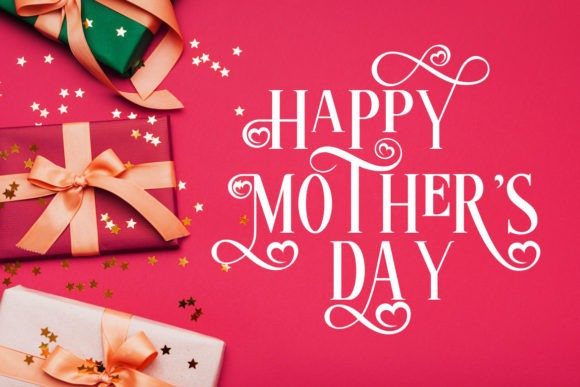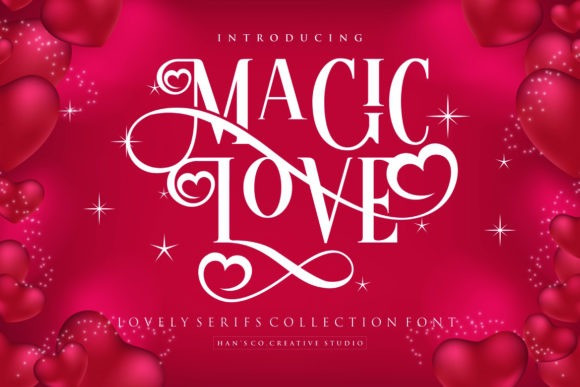
Magic Love Font
Magic Love Serif Font, this beautiful and romantic serif font is all you need for your Valentine’s cards. Use Magic Love to add a romantic touch to all your designs! It has amazing swashes and alternates.